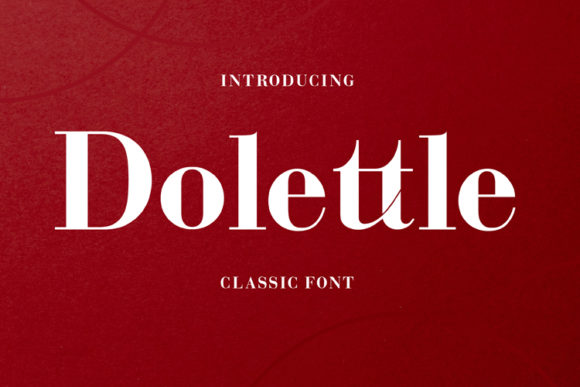
Dolettle Font: Elevate Your Design with Elegance and Sophistication
In the world of typography, fonts play a crucial role in conveying the tone and personality of a brand. A well-chosen font can elevate a design, making it more engaging, memorable, and professional. One such font that has gained significant attention in recent times is the Dolettle Font. This beautiful serif font has been making waves in the design community, and for good reason. In this article, we’ll delve into the world of Dolettle Font, exploring its features, benefits, and uses, as well as why it’s a must-have for designers and brands alike.
What is Dolettle Font?
Dolettle Font is a stunning serif font that exudes elegance and sophistication. Its classic design makes it an excellent choice for a wide range of applications, from logos and branding to packaging design and more. The font’s creator has masterfully crafted each letter to ensure that it is not only aesthetically pleasing but also highly legible, making it perfect for both digital and print designs.
Key Features of Dolettle Font
So, what makes Dolettle Font stand out from the crowd? Here are some of its key features:
- Serif Design: Dolettle Font boasts a classic serif design, which gives it a timeless and sophisticated look.
- Elegant Lines: The font’s lines are smooth and elegant, making it perfect for designs that require a touch of refinement.
- High Legibility: Dolettle Font is designed to be highly legible, even at small sizes, making it ideal for use in a variety of applications.
- Versatile: This font can be used in a wide range of designs, from logos and branding to packaging, posters, and more.
Benefits of Using Dolettle Font
Using Dolettle Font in your designs can bring numerous benefits. Here are some of the advantages of incorporating this beautiful font into your work:
- Enhances Brand Identity: Dolettle Font can help elevate your brand’s identity, making it more professional and sophisticated.
- Increases Legibility: The font’s high legibility ensures that your message is conveyed clearly, even in small sizes.
- Versatile: Dolettle Font can be used in a variety of designs, making it a great addition to your font library.
- Unique: The font’s unique design sets it apart from more common fonts, making your designs stand out from the crowd.
Use Cases for Dolettle Font
Dolettle Font is an incredibly versatile font that can be used in a wide range of applications. Here are some use cases where this font truly shines:
- Logos and Branding: Dolettle Font is perfect for creating professional and sophisticated logos that make a lasting impression.
- Packaging Design: The font’s elegant design makes it an excellent choice for packaging design, adding a touch of refinement to any product.
- Print Materials: Dolettle Font can be used in a variety of print materials, including brochures, flyers, posters, and more.
- Digital Designs: The font is also suitable for digital designs, including website headers, social media graphics, and more.
Why Dolettle Font is a Must-Have
In today’s competitive design landscape, having a unique and high-quality font can make all the difference. Here are some reasons why Dolettle Font is a must-have for designers and brands:
- Quality Design: Dolettle Font is masterfully designed, ensuring that it is both aesthetically pleasing and highly legible.
- Versatility: The font’s versatility makes it suitable for a wide range of applications, from logos and branding to packaging design and more.
- Unique: Dolettle Font’s unique design sets it apart from more common fonts, making your designs stand out from the crowd.
- Elegance: The font’s elegant design adds a touch of sophistication to any design, making it perfect for brands that want to convey a sense of refinement.
In conclusion, Dolettle Font is a beautiful serif font that is sure to elevate your designs. Its elegant design, high legibility, and versatility make it a must-have for designers and brands alike. Whether you’re looking to create a professional logo, design packaging, or simply want to add a touch of sophistication to your print materials, Dolettle Font is an excellent choice. With its unique design and masterful craftsmanship, this font is sure to make a lasting impression.